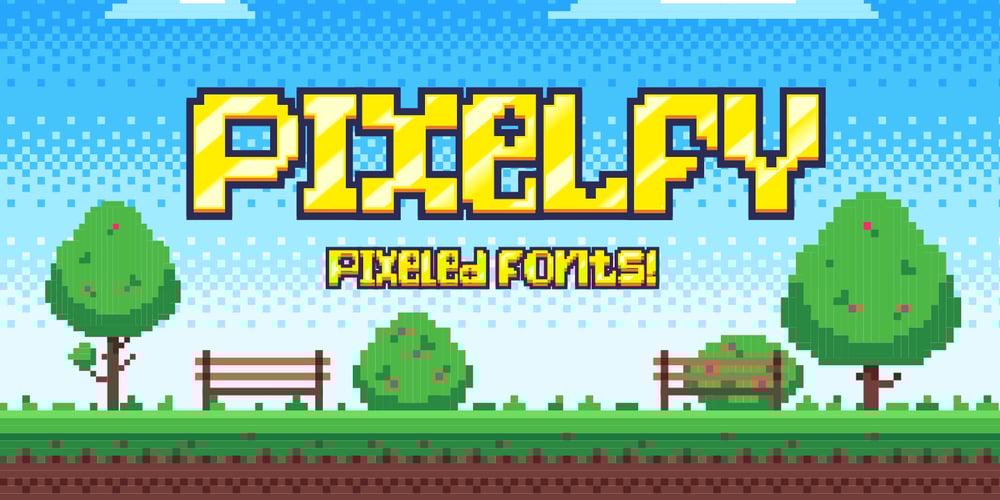
Pixelfy Font Family was designed by Stefie Justprince and published by Crumphand. Pixelfy contains 1 styles and family package options. Introducing new fonts!its called Pixelfy. Pixelfy is hand made pixel font. perfect contour, shape and square.this font its very perfect match for your project. 8bit games, chiptunes music, vaporwave design, digital ads and quotes.What’s inside the fonts ? Uppercase Lowercase Numerals & Punctuation Multilinguals Support Opentype Features Stylistic Alternates Thank you!